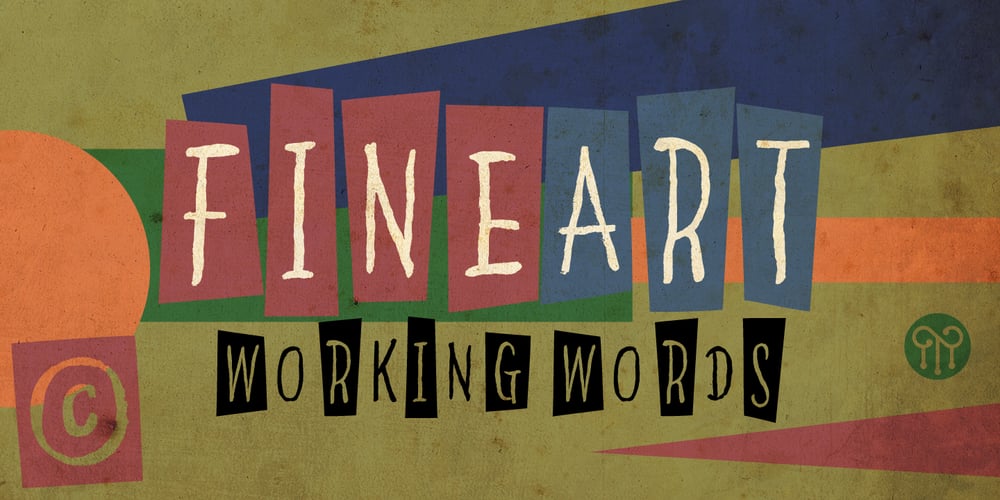
FineArt OT Font Family was designed by John Moore and published by John Moore Type Foundry. FineArt OT contains 1 styles and family package options. FineArt OT is a casual typeface, created by brush, as an emulation of a conventional typography, however, comes with alternative FineArt Opentype OT for exploring other radical forms of expression. Thus FineArt offers 4 styles in a single font.